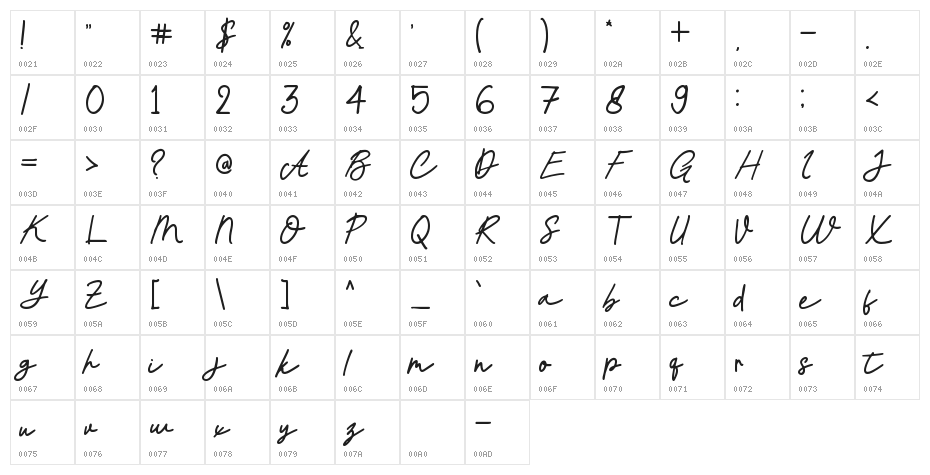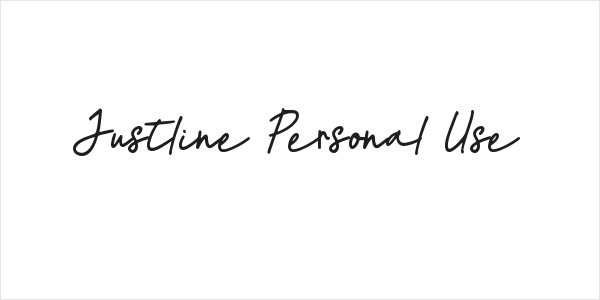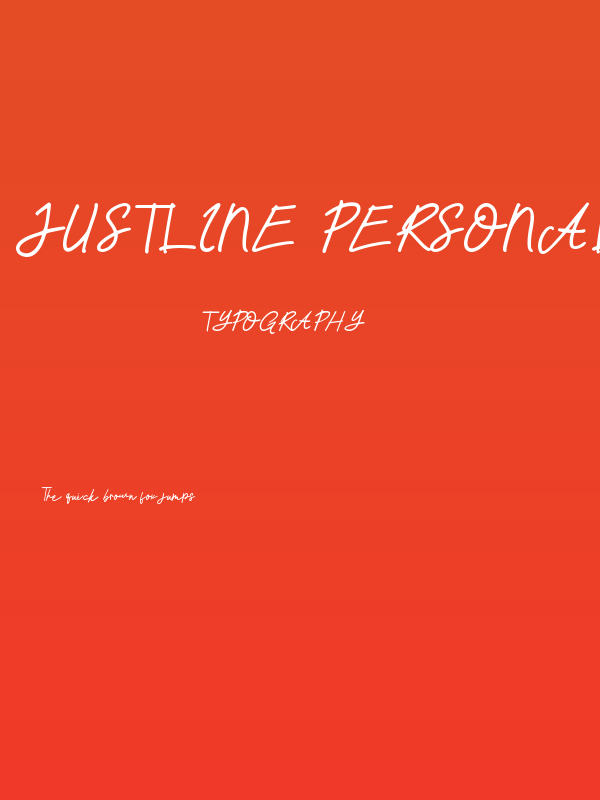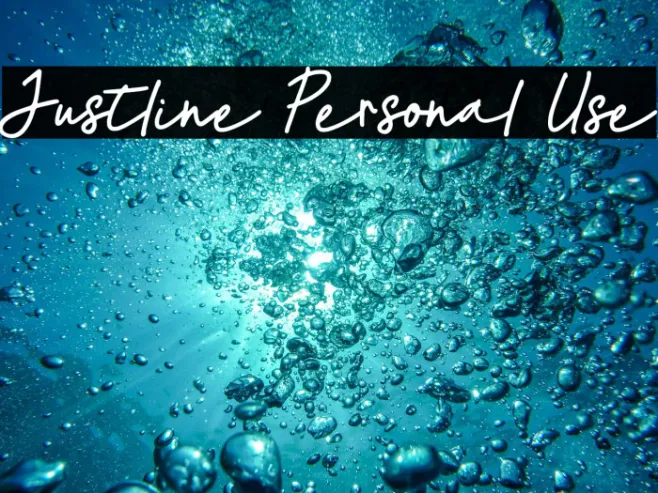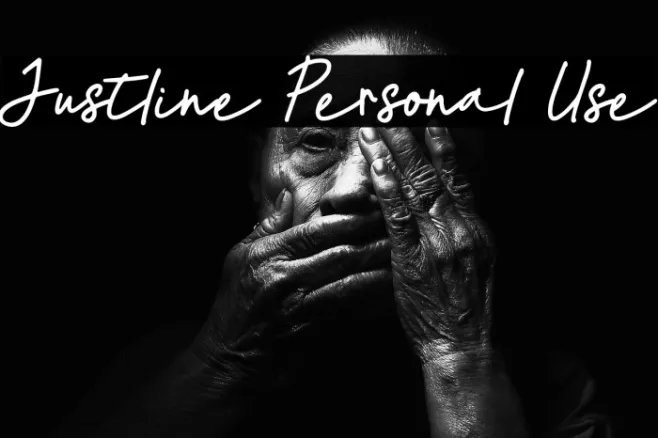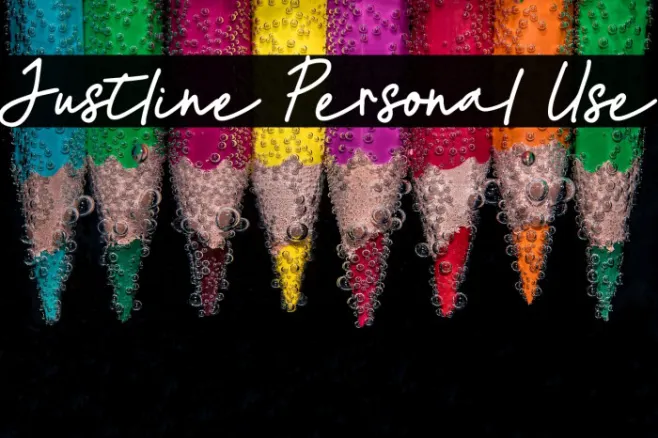
Justline Personal Use Font
Justline Personal Use Description
This font features a lively and fluid handwritten style, characterized by its smooth, flowing curves and slightly slanted letters. The uppercase and lowercase letters maintain a consistent rhythm, giving a sense of elegance and personal touch. The numerals are bold and clear, ensuring readability. Special characters are integrated seamlessly, maintaining the overall aesthetic. This font's playful yet sophisticated appearance makes it ideal for projects that require a personal or artistic flair.
| Proposed Projects | Ideal for greeting cards, personal branding, invitations, and artistic projects. |